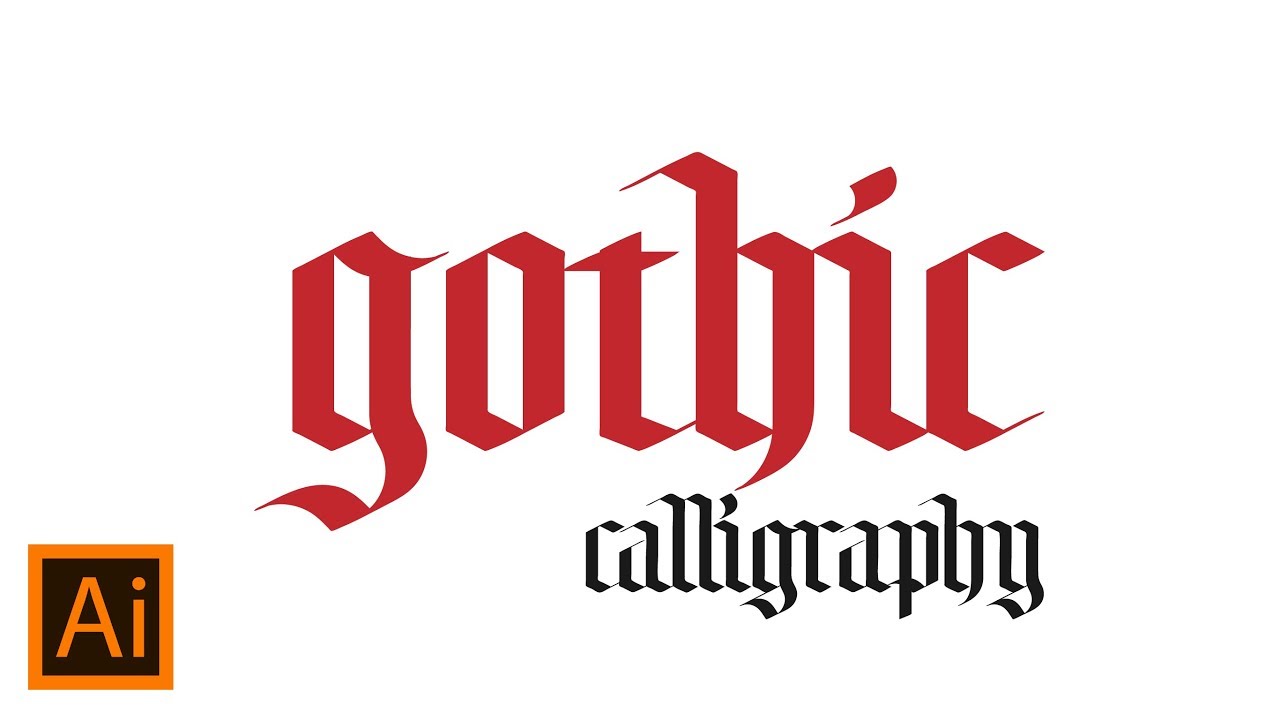
This was my really first time using fontself and I want to show the results of some fonts that I’ve made in a few days using fontself. I really loved this extension because it is very easy to use and saves my time to setting up kerning..hahaha
This is DIYU blackletter typeface
The name comes from the science section of “Sastra Jendra Hayuningrat Pangruwating Diyu” which is a magic mantra for safety from evil elements in the world.